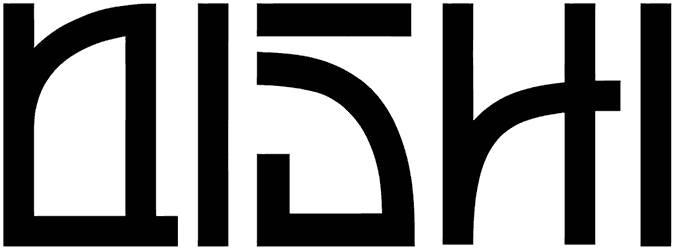
Oishi Font
Oishi font can take you to the space of stars and sky. This tribal and geometric font does not support lowercase letters and numbers. But its notable characters are designed wonderfully as if they show the connection of stars.
As a result, we suggest that you use this futuristic and Japanese font in the design of animation posters, video games, astronomy books, and many street designs and designs on t-shirts.